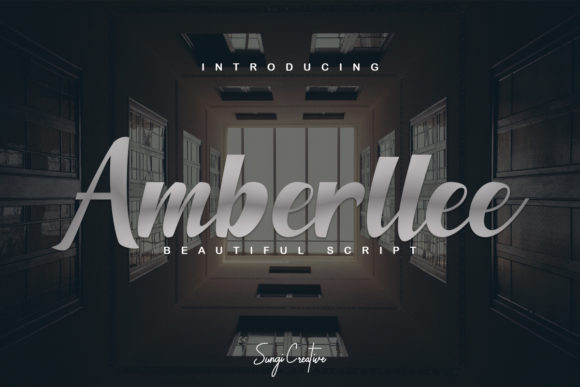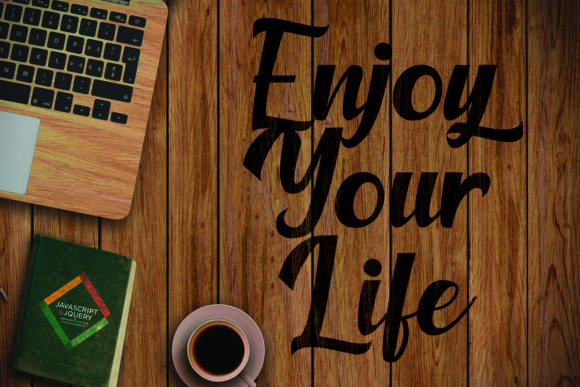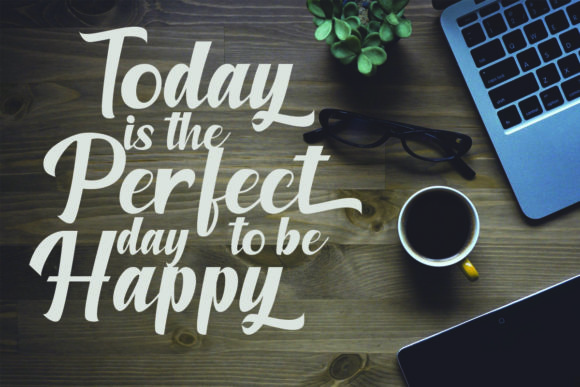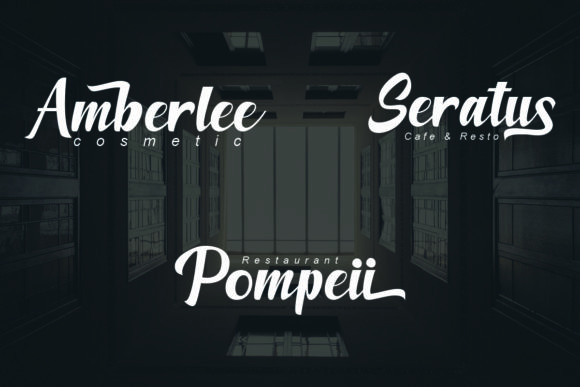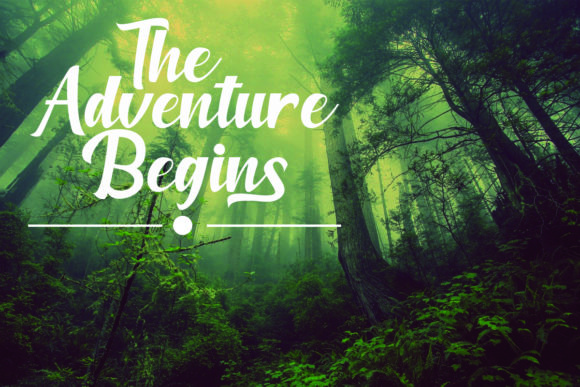
Amberllee Font
About Amberllee Font
Amberllee is a beautiful and elegant handwritten font. It has sweet and well balanced characters and as a result, it matches a wide pool of designs. Add it to your most creative ideas and notice how it makes them come alive!